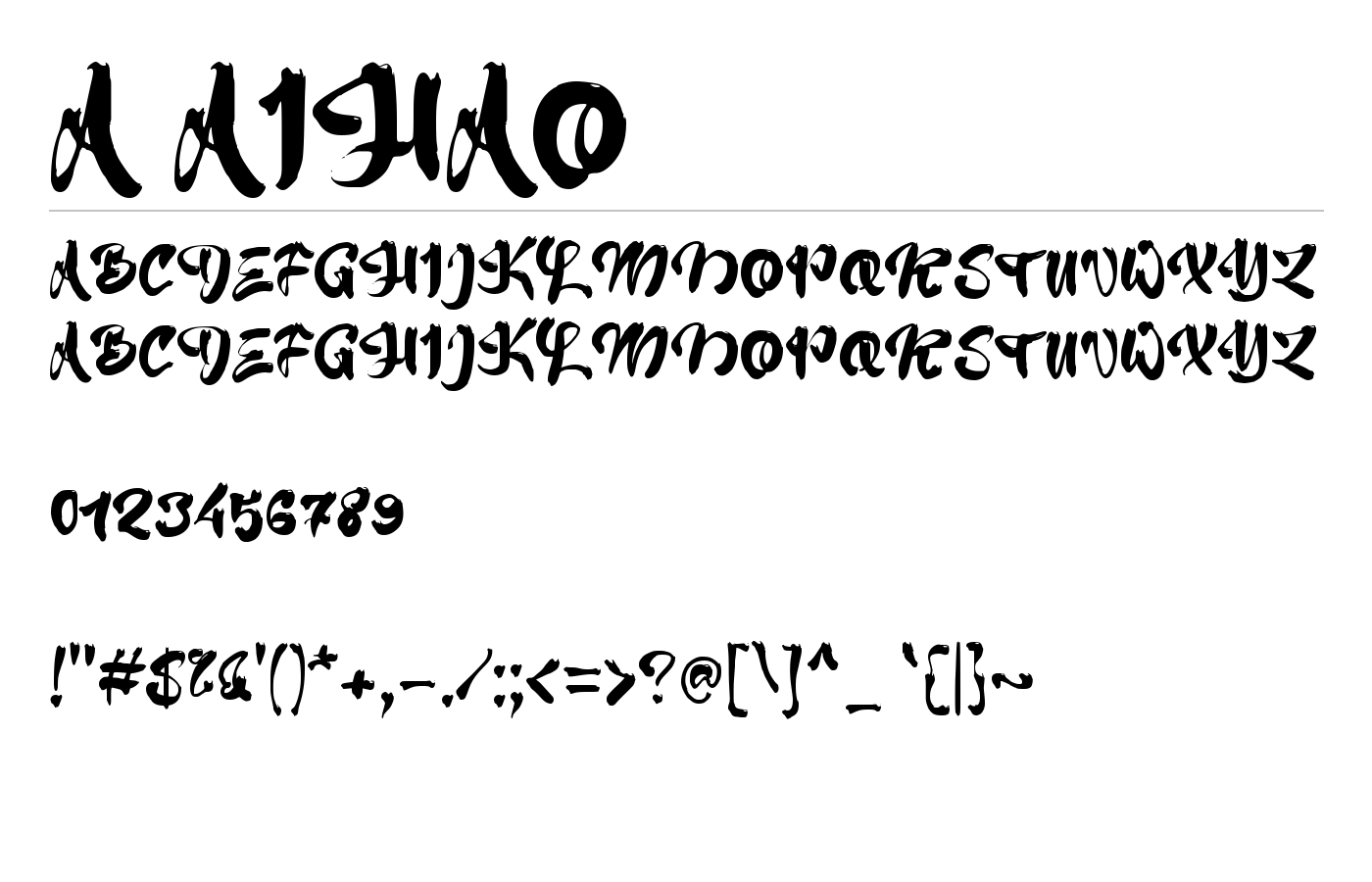
Aihao is a bold and expressive script-style font with a handcrafted feel. Its thick, brush-like strokes and slightly irregular shapes give it an energetic, artistic vibe, making it ideal for creative branding, posters, and eye-catching headlines that want to convey personality and flair. This font works best where a strong, informal style is needed to stand out and create a dynamic, unique impression.
a Aihao Font
About a Aihao Font